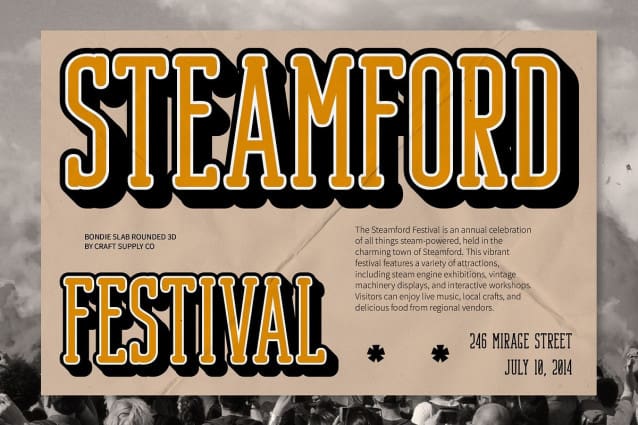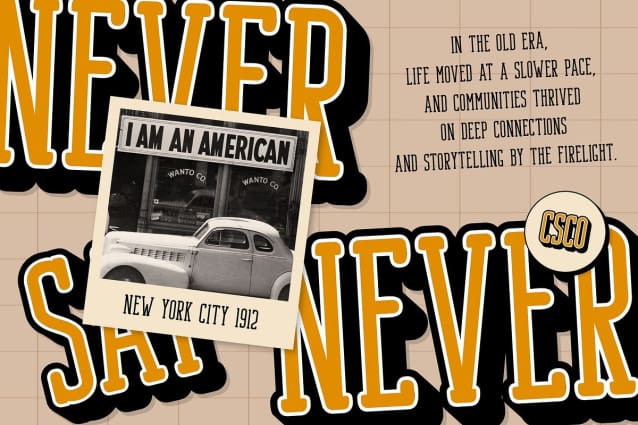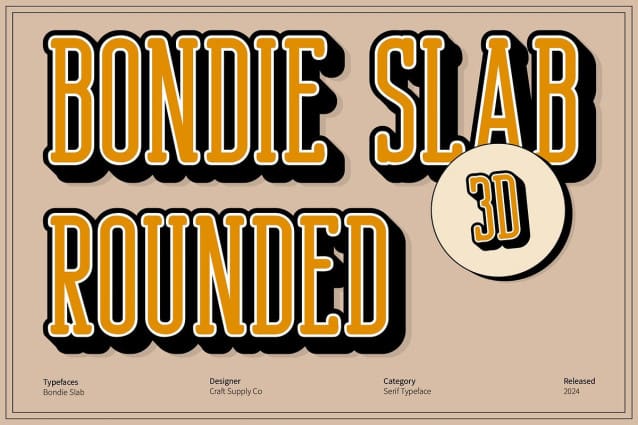
Bondie Slab Rounded 3D Font
Bondie Slab Rounded 3D Font is a rounded, slab, and condensed serif font that artfully combines unique design elements to create a modern and appealing impression. This typeface captivates with its innovative structure, ensuring it stands out while maintaining a stylish and contemporary feel. Perfect for those looking to make a statement, Bondie embodies both elegance and approachability.
Softness and Readability The rounded shapes of Bondie Slab Rounded 3D provide a softness that enhances readability, making this font suitable for a wide range of applications. The gentle curves invite viewers in, ensuring that your message is conveyed clearly and attractively. Whether in print or digital formats, this font excels at maintaining clarity while adding a warm touch to any design.
Strength and Character through Slab Serifs The slab serifs add a layer of strength and character to the letters, giving this rounded 3D font a bold presence that commands attention. This harmonious combination of roundness and solid structure makes the font versatile, able to adapt seamlessly to various design contexts, from sophisticated branding to vibrant promotional materials.